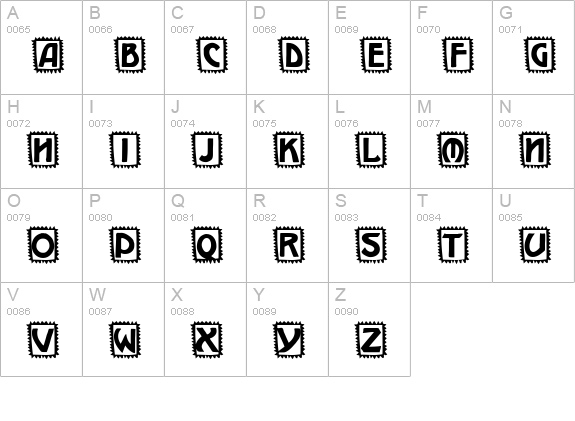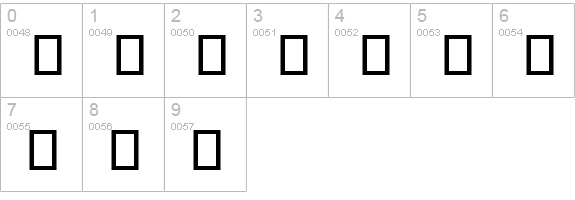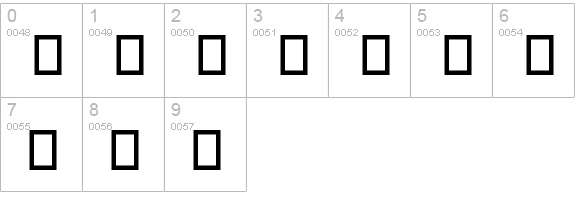
Takker Font Details
Introducing Takker font, a modern and versatile typeface that will revolutionize your design projects. With its sleek and elegant letterforms, Takker font is perfect for a wide range of applications, from branding and advertising to editorial design and web graphics. This font is not only visually stunning, but it also offers a high level of readability, making it suitable for both headlines and body text. Its clean lines and balanced proportions create a harmonious and professional look that will attract attention and leave a lasting impression. But what sets Takker font apart from the rest is its unique feature - it's available for free! Yes, you heard it right. You can freely download this remarkable font at FontsMarket.com, one of the leading platforms for high-quality fonts. By making Takker font accessible to everyone, we aim to empower designers and creatives to bring their visions to life without any financial barriers. Whether you're a beginner or an experienced designer, Takker font is incredibly easy to work with. Its extensive character set includes uppercase and lowercase letters, numerals, punctuation marks, and special symbols, ensuring that you have all the tools you need to create stunning designs. With its versatility and affordability, Takker font is a must-have addition to any designer's toolkit. Whether you're working on a logo, a poster, a website, or any other project, this font will elevate your design to new heights. So why wait? Download Takker font for free at FontsMarket.com and let your creativity soar!